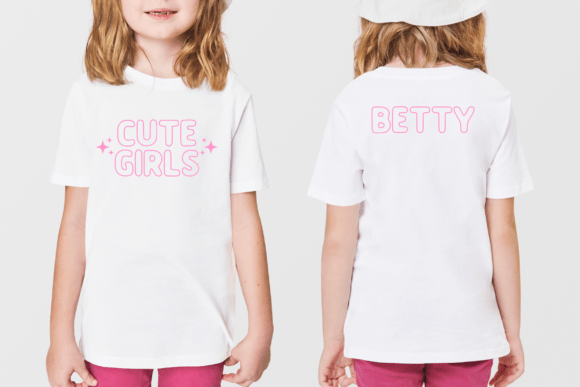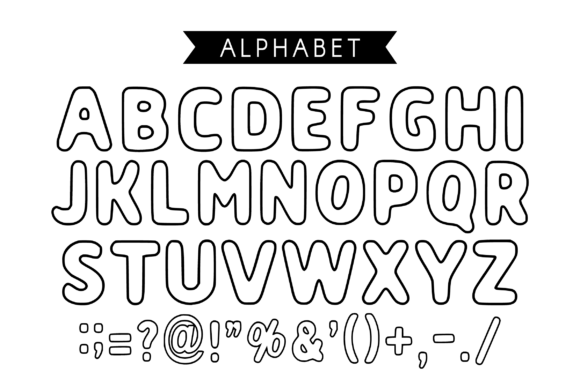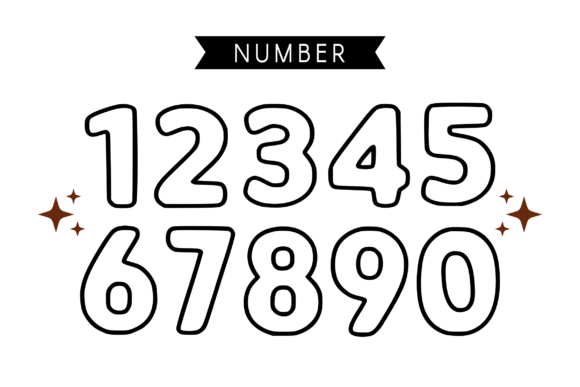
Discover the Delightful World of Cute Outline: A Contemporary Children’s Font
Welcome to the whimsical world of “Cute Outline”, a contemporary children’s font crafted with a delightful twist. Each character is lovingly designed, flaunting a charm that makes it friendly and engaging. In this article, we’ll explore the unique features and uses of Cute Outline, and how it can bring a touch of joy to your crafting projects.
The Charm of Cute Outline
Cute Outline is more than just a font – it’s an experience. Its adorable outline makes it an ideal choice for a variety of crafting projects, from vibrant sublimation designs on t-shirts, mugs, and tote bags, to animations, comic titles, and beyond. The font’s playful and whimsical nature is sure to capture the hearts of designers, crafters, and audiences alike.
Features of Cute Outline
- Unique Design: Each character in Cute Outline is carefully crafted with a unique and playful design, making it perfect for children’s projects, animations, and comics.
- Adorable Outline: The font’s outline is what sets it apart, giving it a distinctive and charming look that’s sure to delight.
- Versatile: Cute Outline can be used for a wide range of projects, from digital designs to print materials, and even animations.
- Easy to Read: Despite its playful nature, Cute Outline is easy to read, making it perfect for body text and titles.
Uses of Cute Outline
Cute Outline is an incredibly versatile font that can be used for a variety of projects, including:
- Sublimation Designs: Create vibrant and colorful designs for t-shirts, mugs, tote bags, and more.
- Animations and Comics: Add a touch of whimsy to your animations and comics with Cute Outline’s playful design.
- Children’s Books and Educational Materials: Cute Outline is perfect for children’s books, educational materials, and activity sheets.
- Digital Designs: Use Cute Outline for social media graphics, blog posts, and website designs.
Nurture Your Creativity with Cute Outline
Cute Outline is more than just a font – it’s a tool to help you unleash your creativity. Whether you’re a designer, crafter, or simply someone who loves to create, Cute Outline is the perfect companion. With its unique design and versatility, you can create a wide range of projects that are sure to delight.
Get Creative with Cute Outline
Ready to unleash your creativity with Cute Outline? Here are some tips to get you started:
- Experiment with Colors: Try out different color combinations to bring your designs to life.
- Mix and Match Fonts: Combine Cute Outline with other fonts to create unique and interesting designs.
- Play with Patterns: Add patterns and textures to your designs to give them an extra layer of depth.